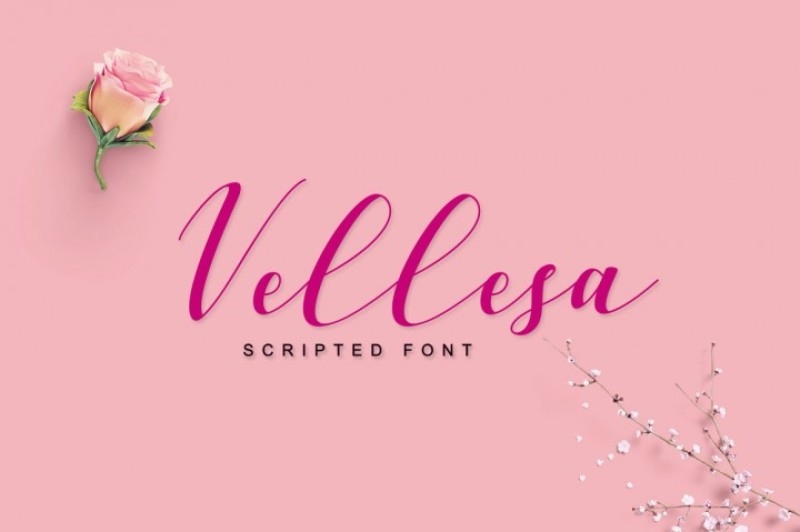
Our latest FREEBIE is here!! Download this elegant script font by pointlab completely FREE of charge, this week only. A huge thank you to pointlab for allowing us to share their brilliant product with you for free. Be sure to check out other products offered by visiting their complete store - click here As with all our weekly freebies, this product comes with a complete commercial license. The same as with all our paid goods. Introducing Vellesa Script Vellesa Script is a new fresh & modern script with handmade calligraphy style, decorative characters and a dancing baseline! It's so beautiful on invitations, greeting cards, branding materials, business cards, quotes, posters and more!! Vellesa Script comes with 359+ glyphs. The alternative characters were divided into several Open Type features such as Swash, Stylistic Sets, Stylistic Alternates, Contextual Alternates. The Open Type features can be accessed by using Open Type savvy programs such as Adobe Illustrator, Adobe InDesign, Adobe Photoshop Corel Draw X version, And Microsoft Word. And this Font has PUA unicode (specially coded fonts), so that all the alternate characters can easily be accessed in full by a craftsman or designer. Vellesa Script: Uppercase & Lowercase International Languange & Symbols Support Punctuation & Number PUA Unicode Range Standard Stylistic Alternates Stylistic Set 1-12 Character Variant Contextual. The ZIP file are include the following : What's Included Vellesa Script.OTF Vellesa Script.TTF Vellesa Script Web Font (eot, svg, woff, woff2) If you don't have a program that supports OpenType features such as Adobe Illustrator and CorelDraw X Versions, you can access all the alternate glyphs using Font Book (Mac) or Character Map (Windows).
FREE Vellesa Script Font